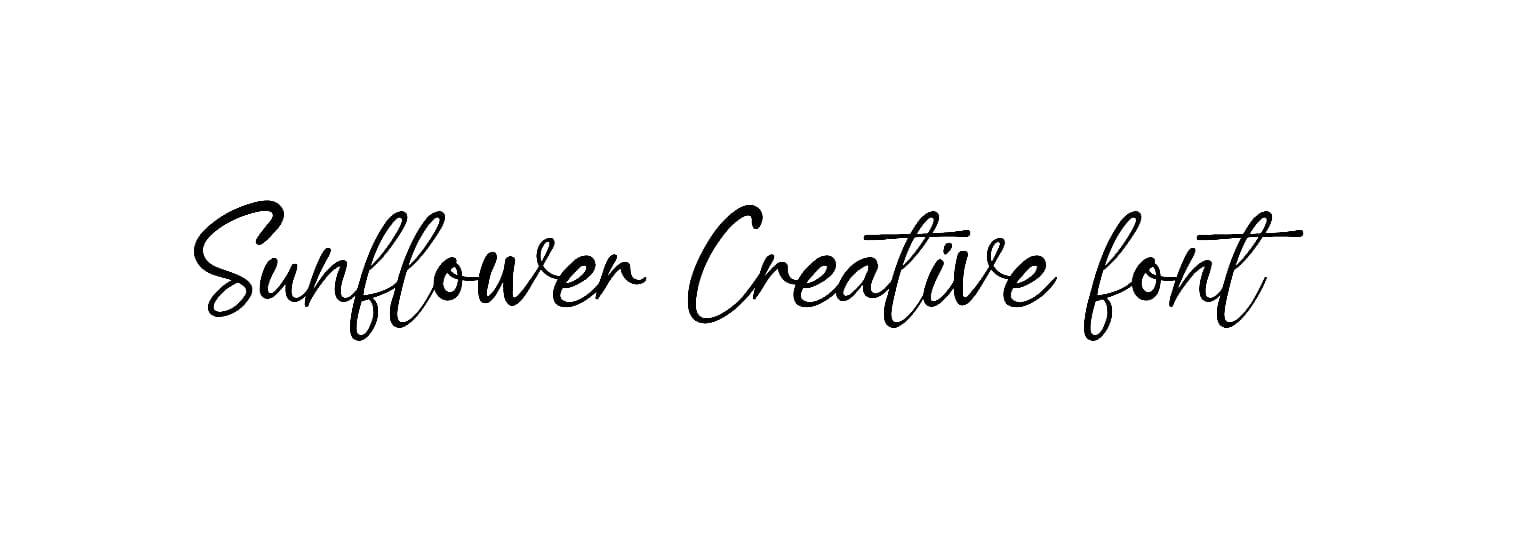
SunFlower Creative
SunFlower Creative is a handwritten font. It looks like someone actually wrote it by hand: relaxed, friendly and a little imperfect in a good way. It's a free download, and you can try it with your own text in the preview above first.
What You Can Type With SunFlower Creative
SunFlower Creative covers the full alphabet in upper and lowercase, plus all ten numbers, so you can set names, dates and prices without switching fonts. Common punctuation such as &, !, ? and @ is included as well. It also has the accented letters you need for Spanish, French, Portuguese and Italian.
Where SunFlower Creative Works Best
SunFlower Creative is a natural fit for greeting cards, journal pages and friendly social posts. Its lowercase letters are small compared to the capitals, so set it a size or two bigger than usual. Set it a bit larger than you would a normal text font. Handwriting styles lose their charm once they get too small to read comfortably.
Does SunFlower Creative support accented letters?
Yes. SunFlower Creative includes the accented letters needed for Spanish, French, Portuguese and Italian, so it works for more than just English.